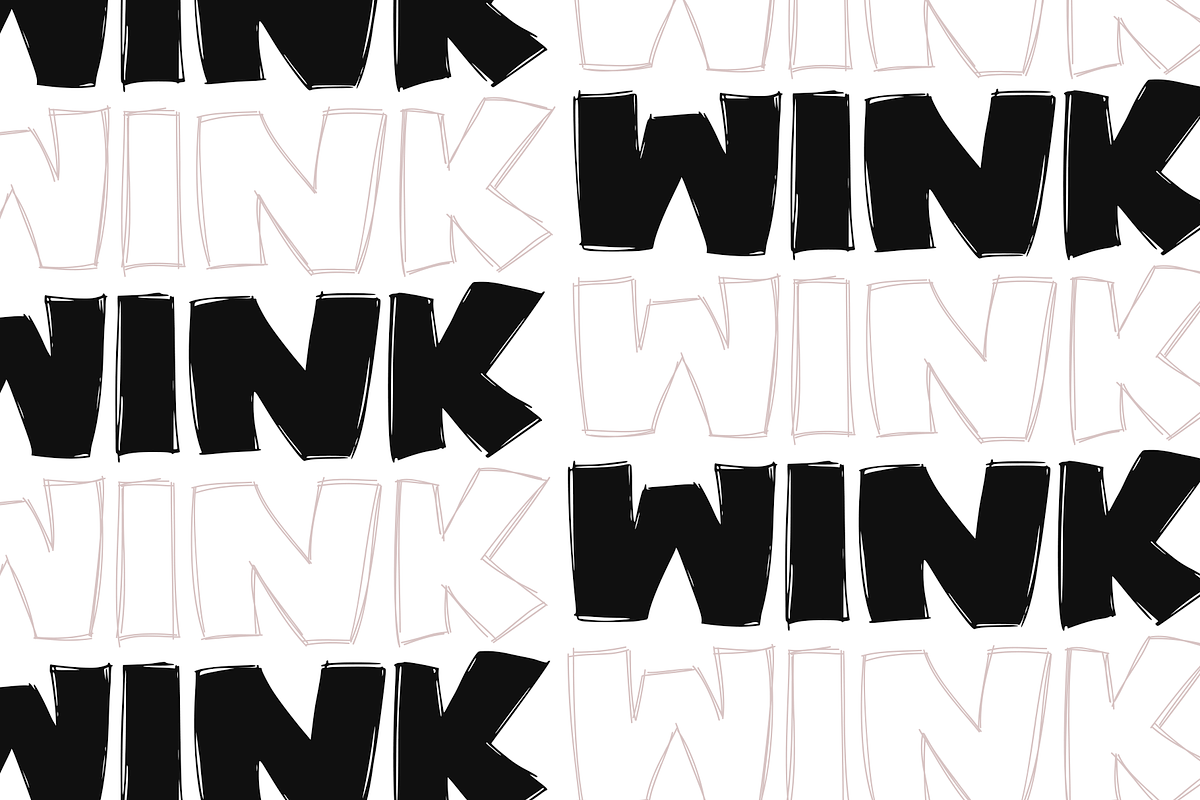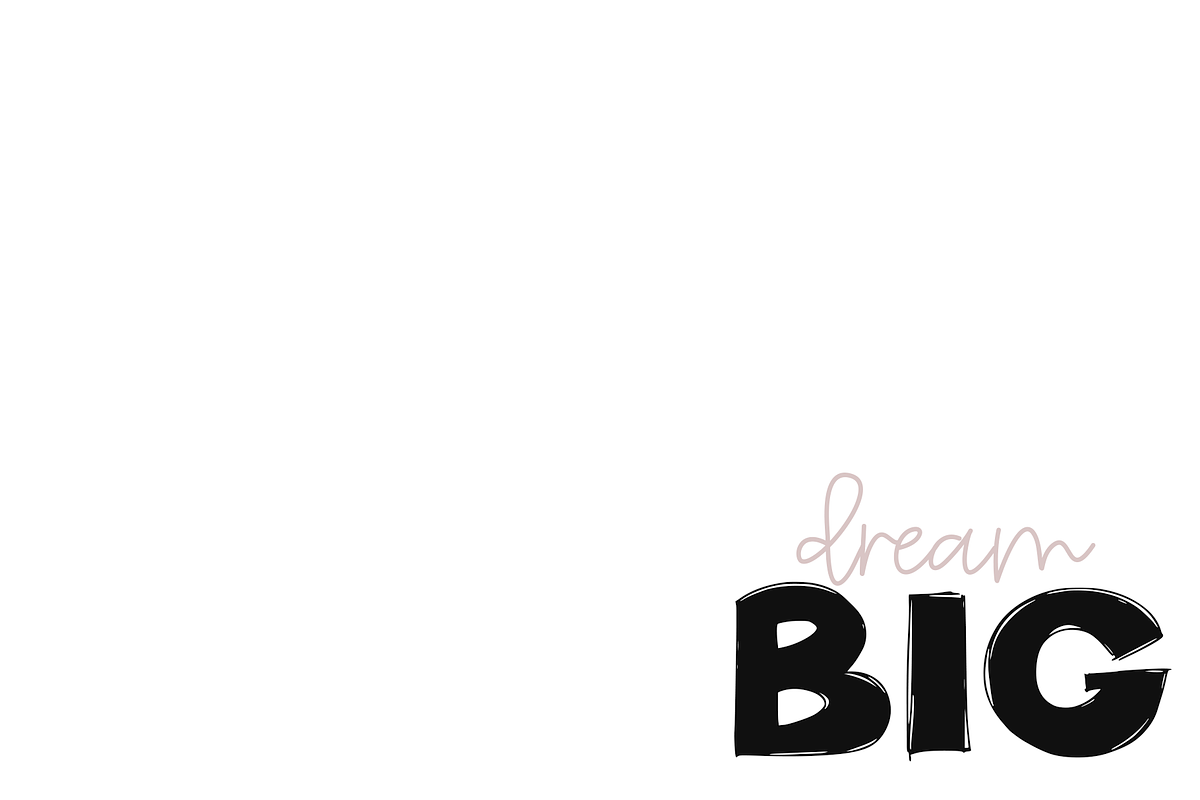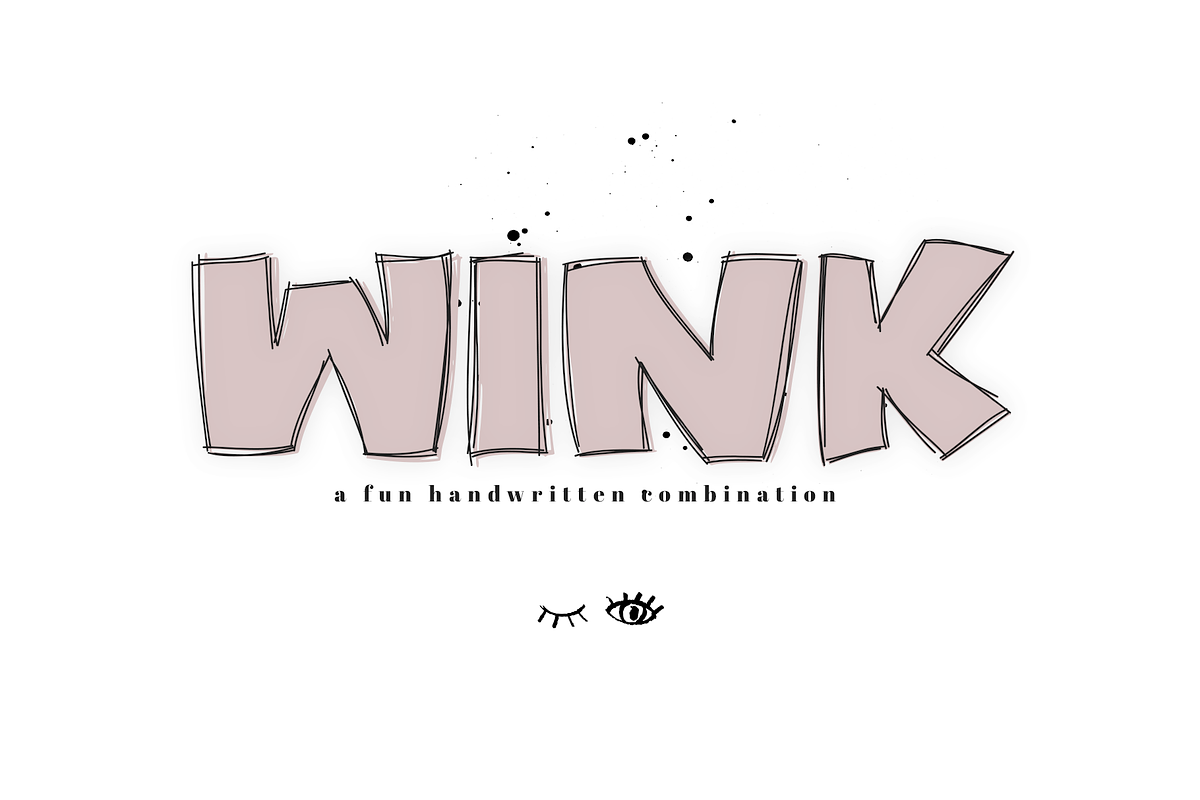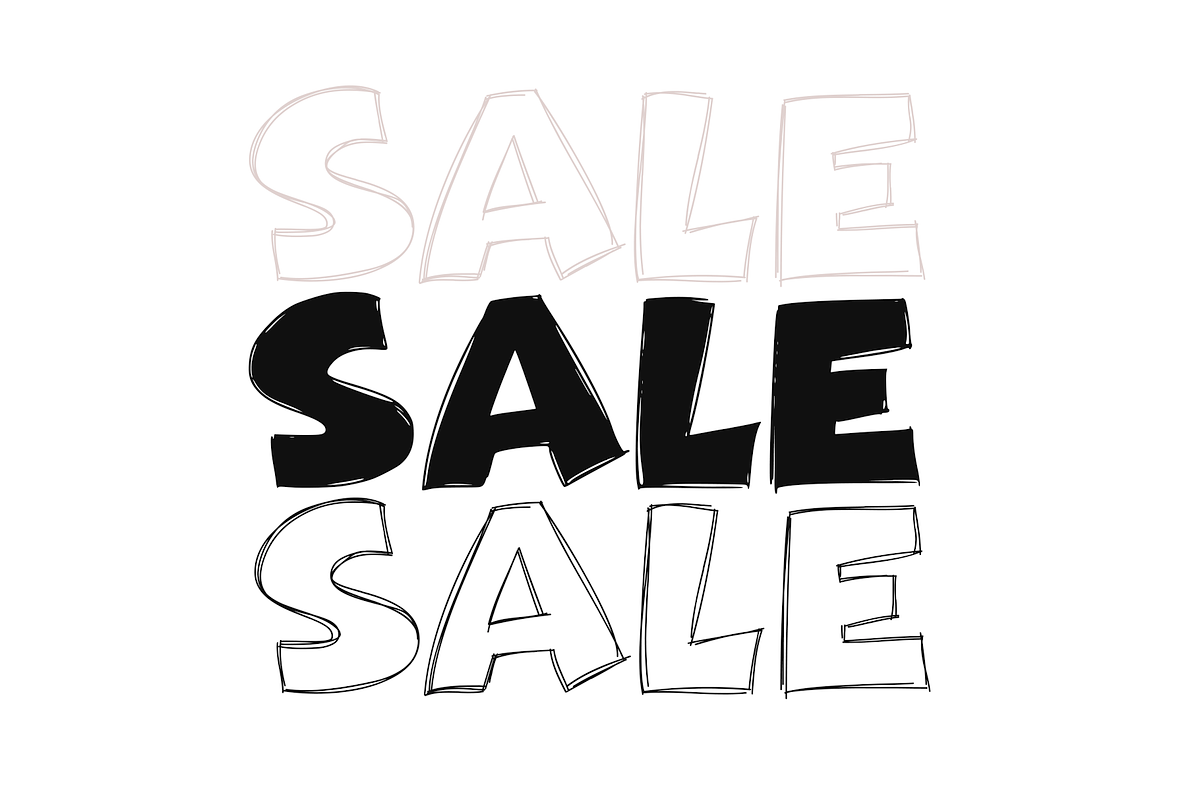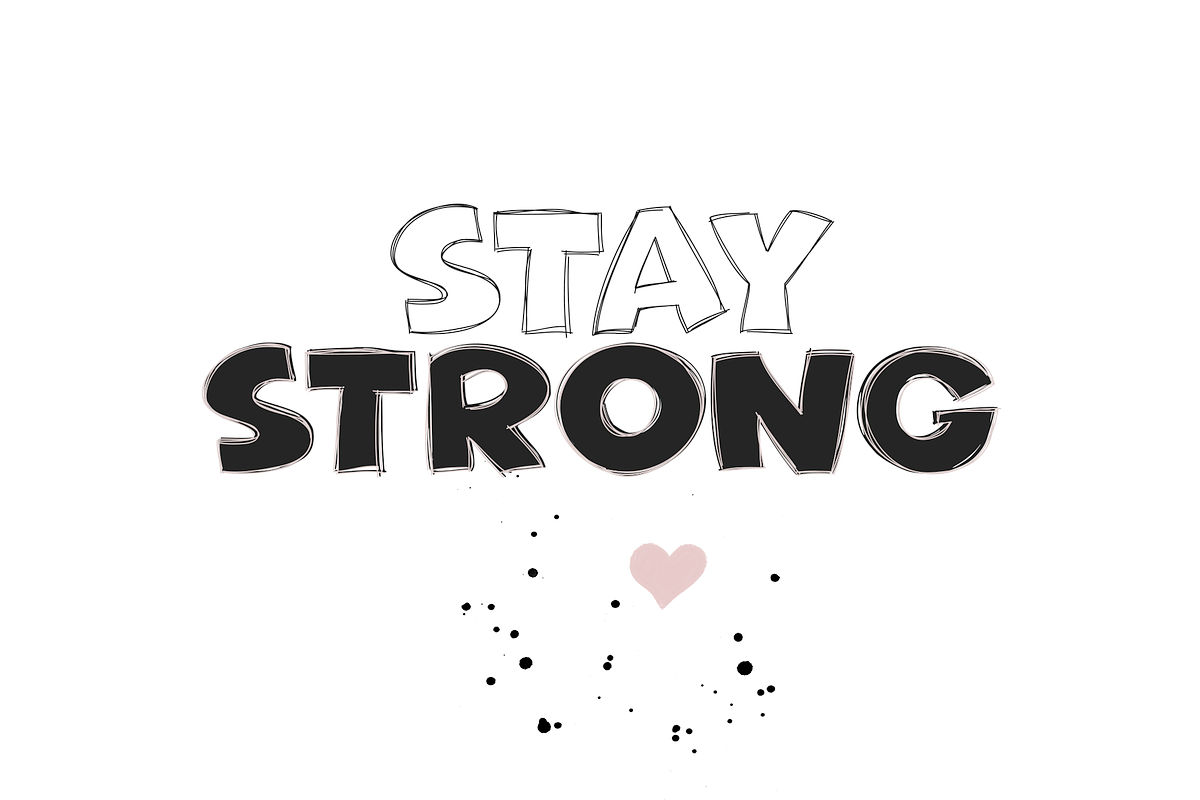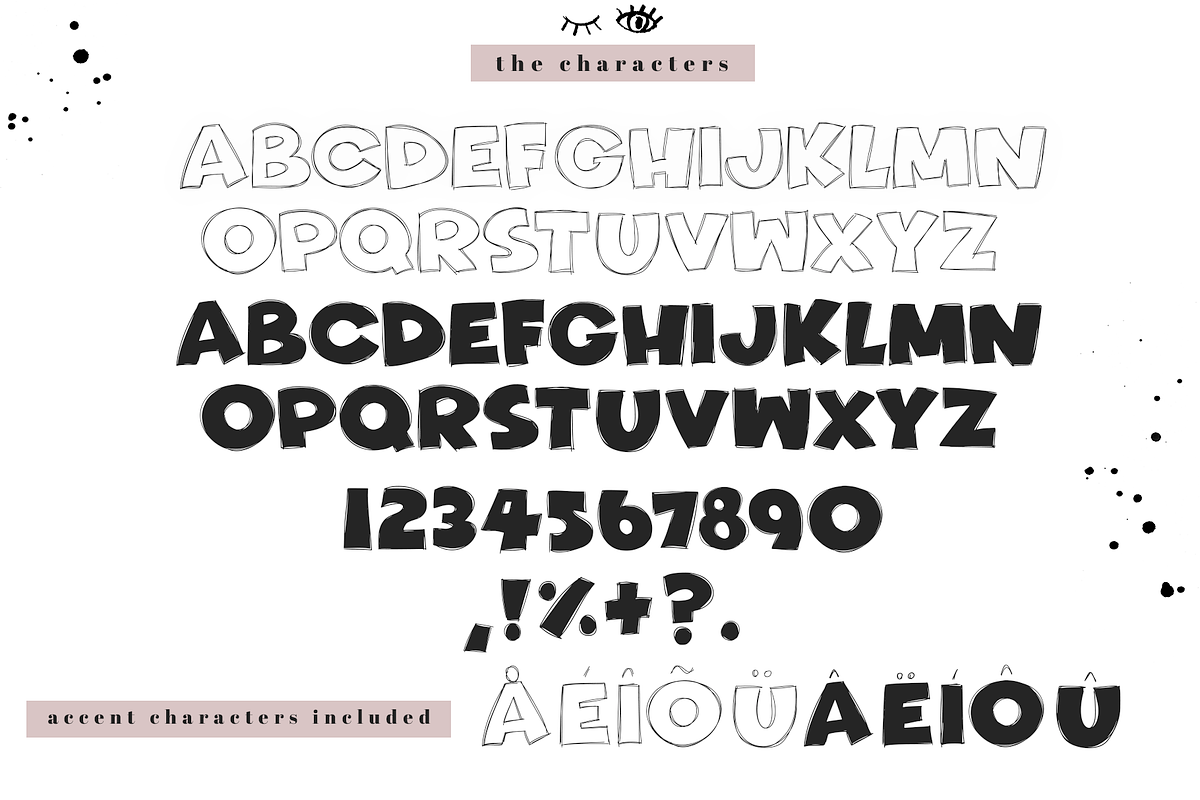
Wink - A Bold Handwritten Font
WINK is a fun and bold handwritten font.
This is an all caps font with two looks:
Capital Letters are a scribble outline.
Lowercase letters are a scribbled outline with fill.
Mix & Match or overlay your words for a fun look!
This font is perfect for quotes, headings, blogs, logos, invitations and more!